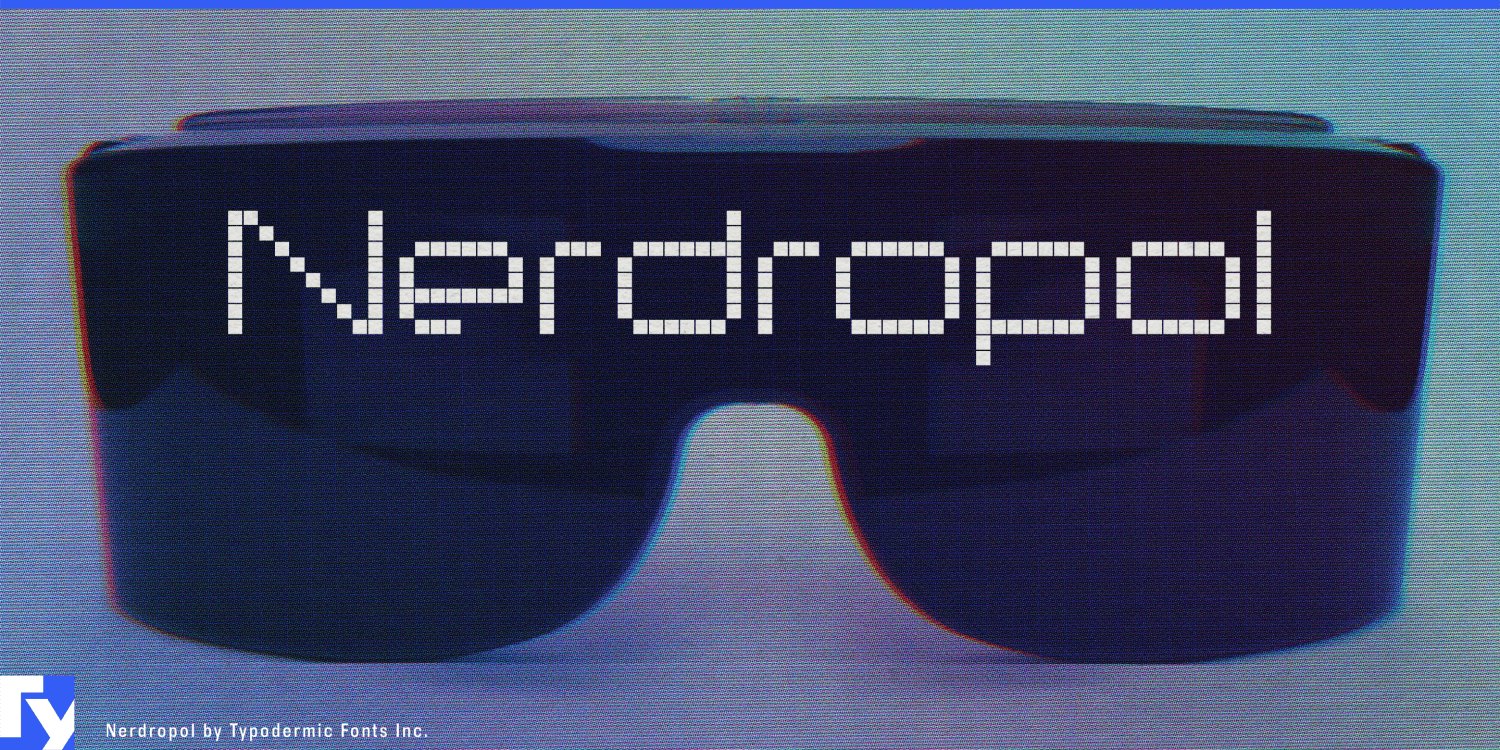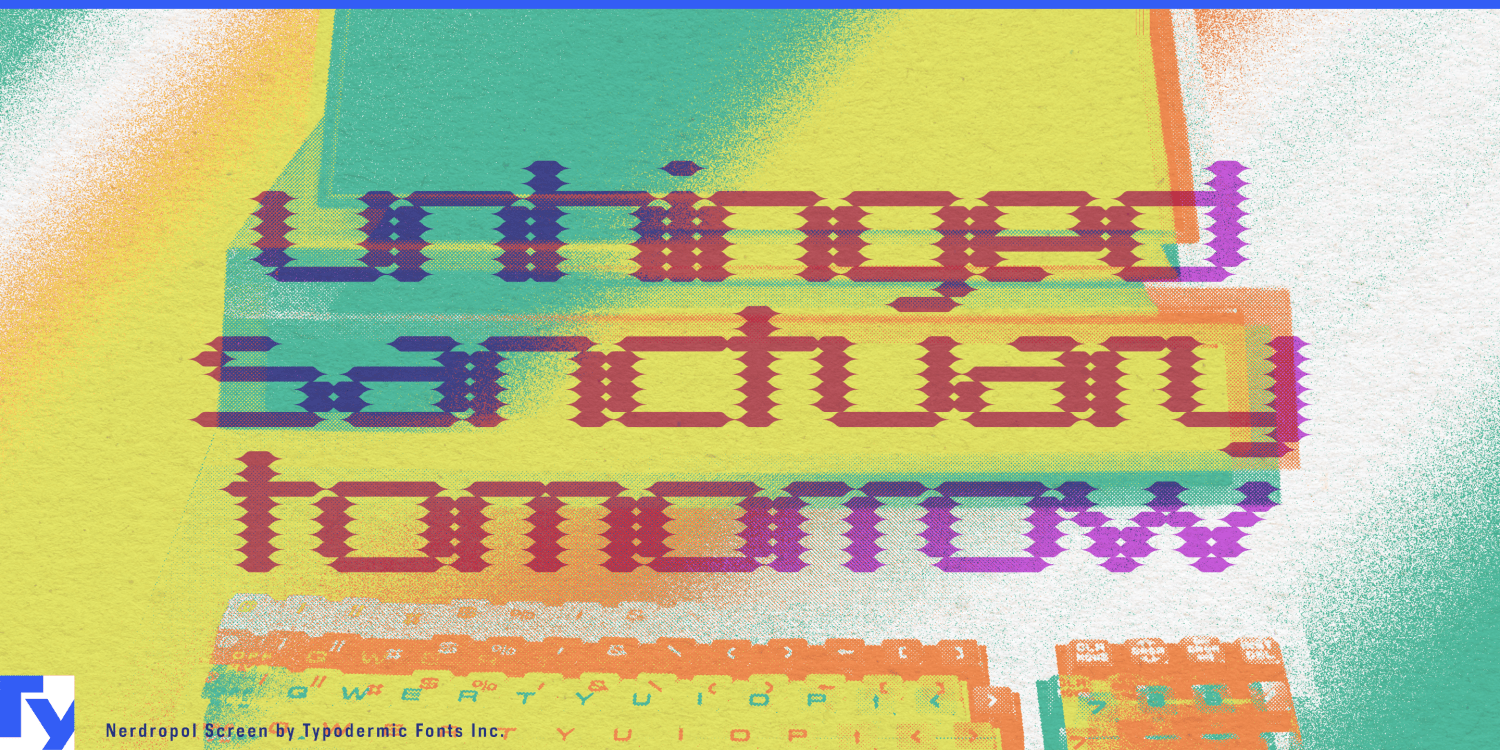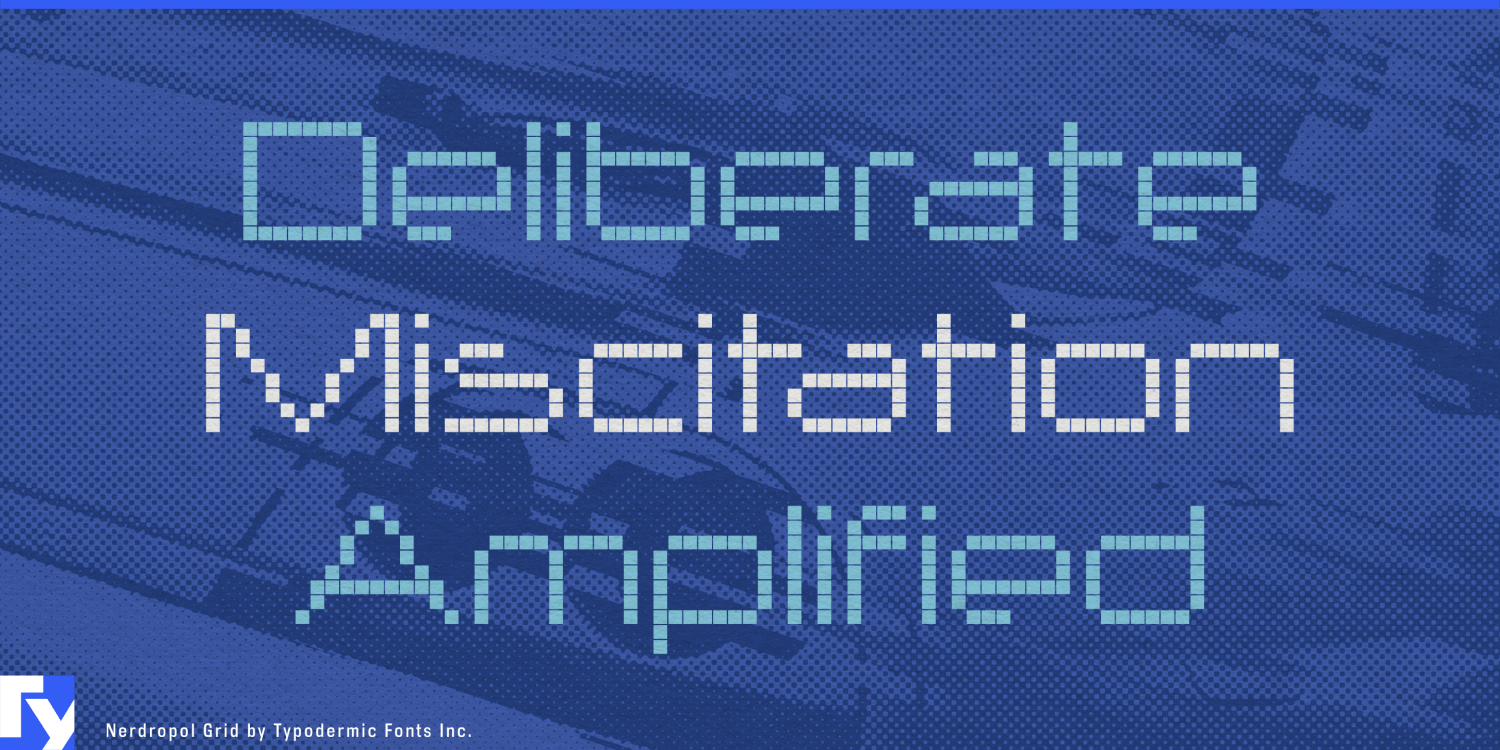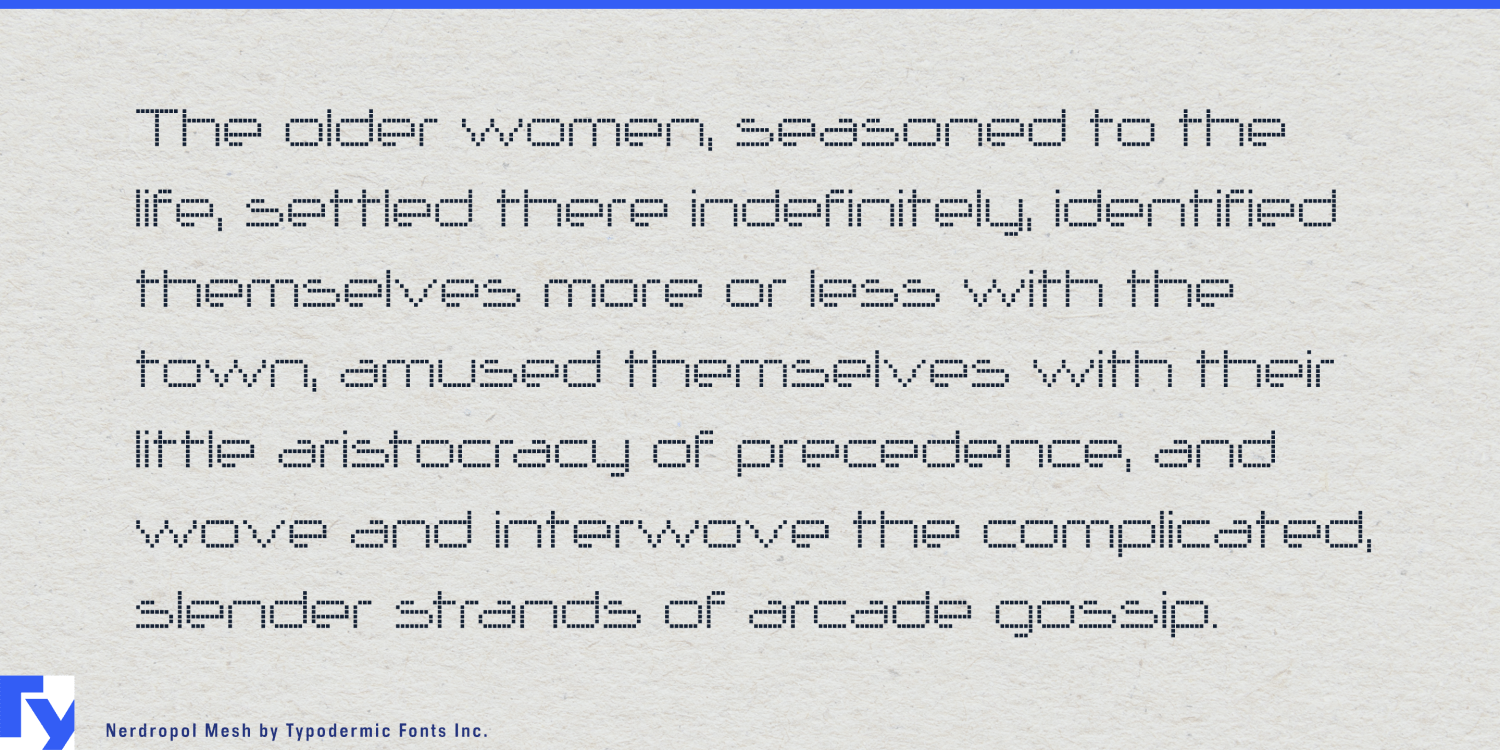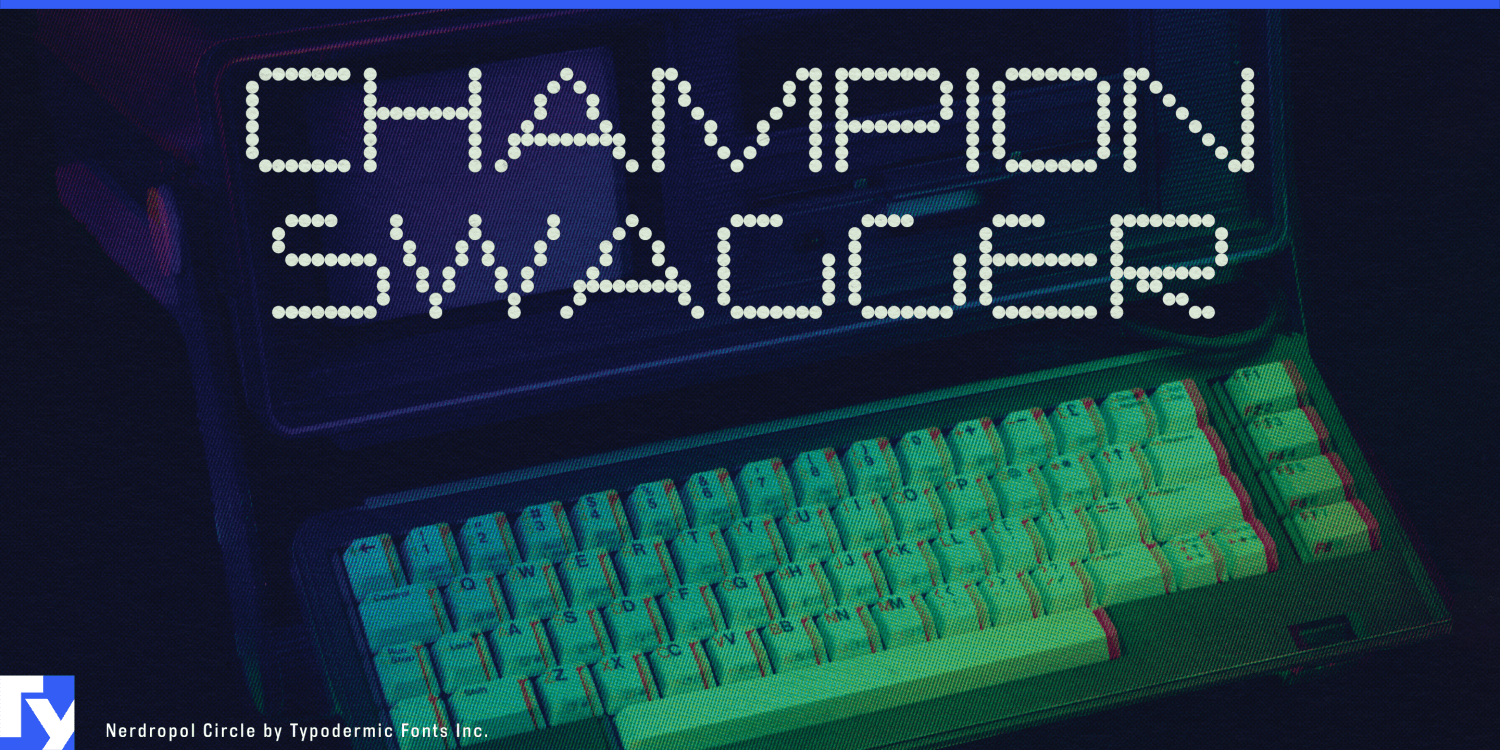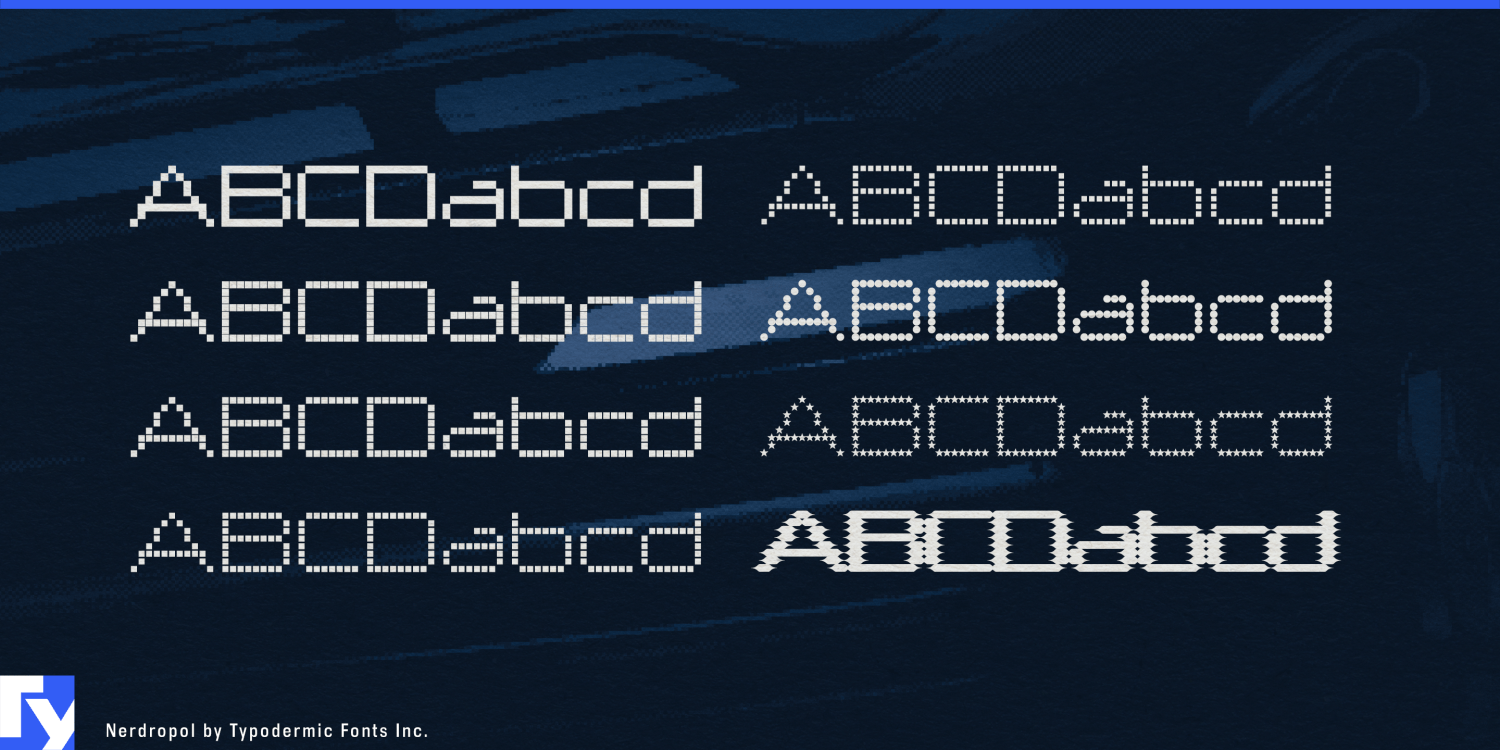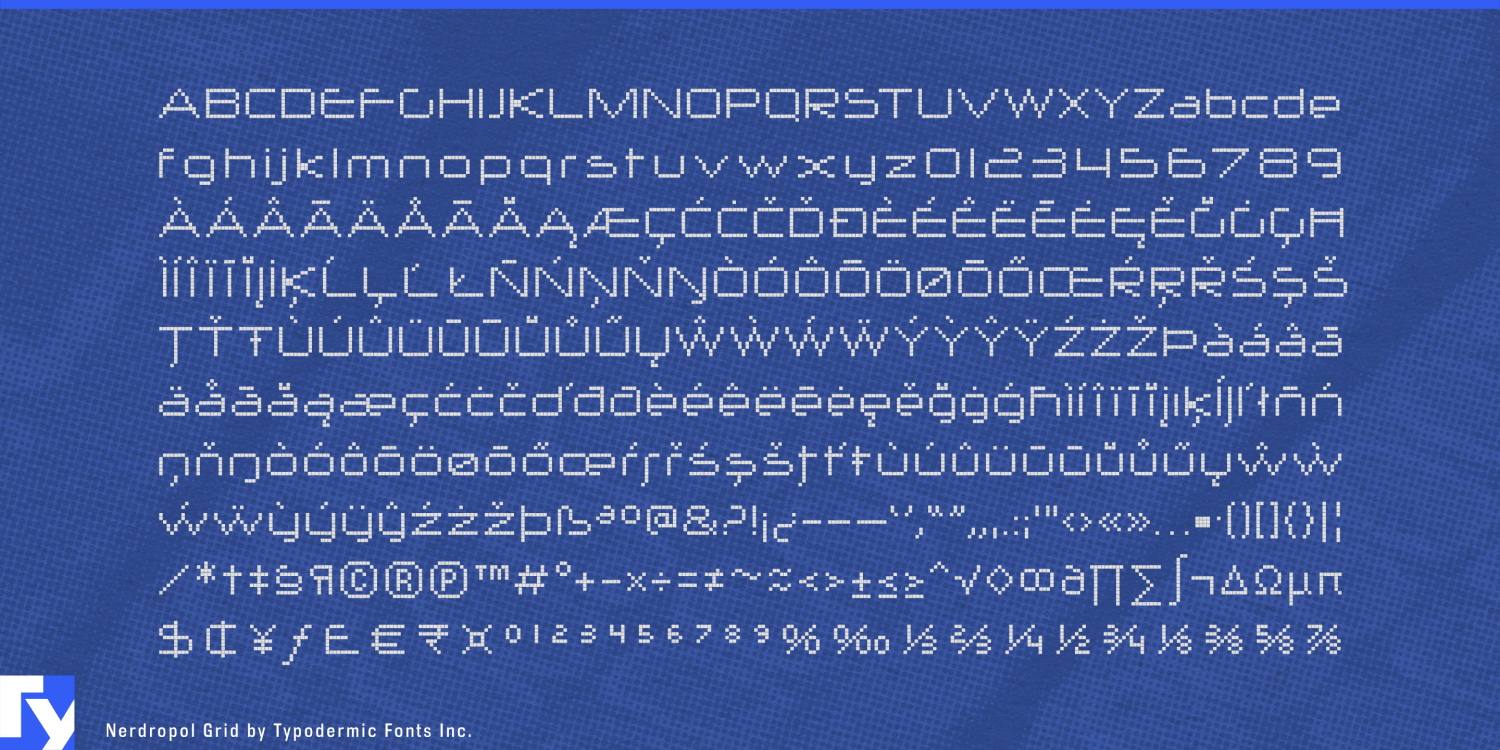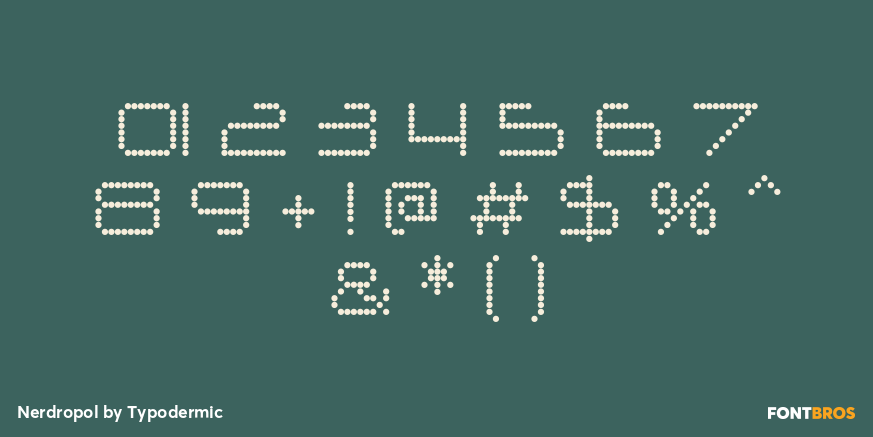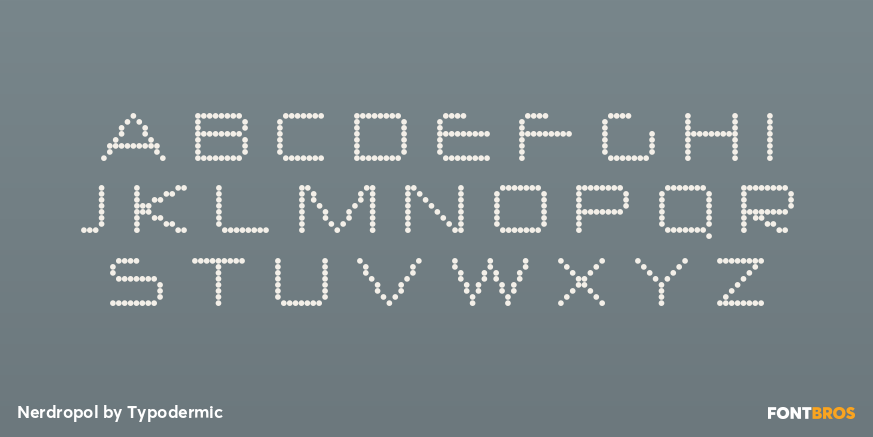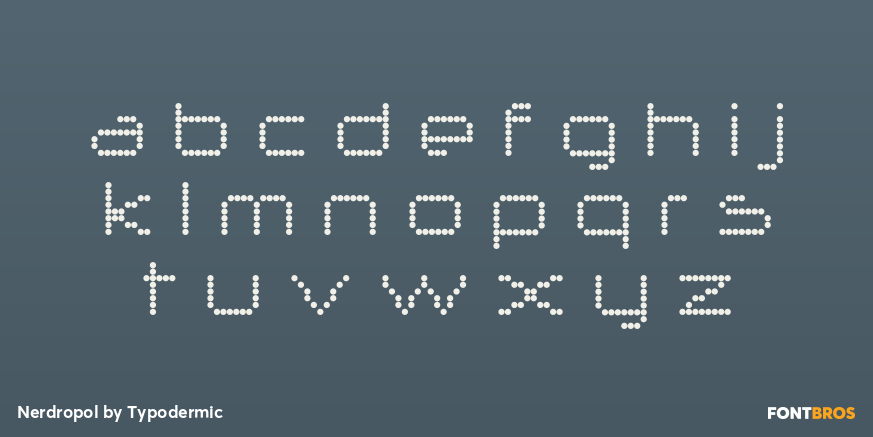
Nerdropol
Pixel typography usually comes bundled with nostalgia. That becomes a problem when the subject is a contemporary LED wall, image sensor, virtual-production stage or responsive light installation rather than an old arcade cabinet. Nerdropol keeps the discipline of a pixel grid but applies it to slender geometric forms, giving designers a way to work with visible digital structure without automatically turning the project into an 8-bit revival.
Display technology is one of its strongest territories. MicroLED systems, modular LED walls, digital-signage hardware, video processors and pixel-mapping platforms are built around arrays of discrete light sources. Nerdropol can carry product-series names, technology-demo headings, trade-show walls and launch graphics in typography that reflects the equipment itself. Its eight coordinated styles reinterpret the same underlying design through dots, grids, lattice structures, screen effects and other modular treatments.
Live events and virtual production push that idea into larger spaces. Automotive launches, technology conferences, arena presentations and immersive exhibitions increasingly rely on programmable display surfaces. Nerdropol can handle stage titles, zone names, countdowns and motion-graphic headings while a clean sans serif carries schedules, specifications and longer information. LED-volume studios, real-time production systems and media-server companies can use the same language for demo reels, product graphics and conference environments where typography is literally surrounded by pixels.
Machine vision and imaging hardware provide another natural setting. Industrial cameras, image sensors, depth-camera systems, optical inspection equipment and computer-vision platforms all begin with sampled visual information arranged into grids. Nerdropol can give sensor names, product families, demonstration graphics and trade-show displays a direct relationship to that underlying structure without resorting to circuit-board patterns or generic futuristic lettering.
Programmable-light architecture offers a forward-looking extension. Media façades, responsive installations, exhibition pavilions and public lighting systems increasingly treat walls and buildings as low-resolution displays. Nerdropol can identify these projects in presentations, environmental graphics and promotional material, while its modular constructions echo the nodes and arrays from which the installations are assembled. Drone-light shows and robotic-light performances provide a related role for event titles and sponsor graphics.
Games remain part of Nerdropol’s territory without having to define it. Game titles, tournament packages, stage names, boot sequences and hardware-inspired interface moments can use its pixel construction when the digital grid is intentionally visible. Nerdropol works best where a few words need to feel built from the display system itself: product names, stage titles, zone identifiers, large numerical callouts and animated headings.